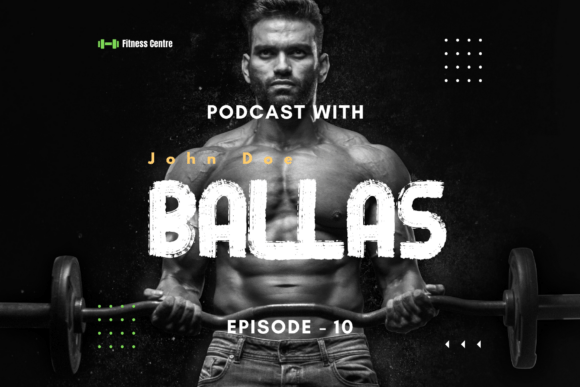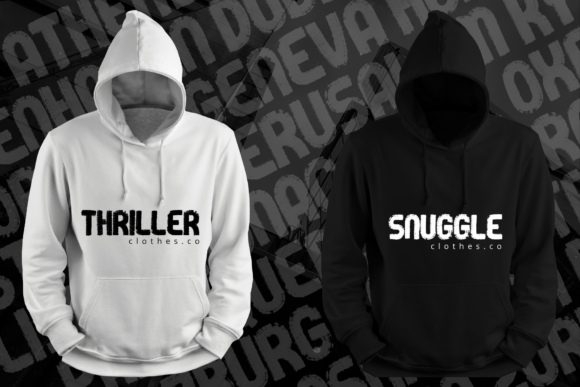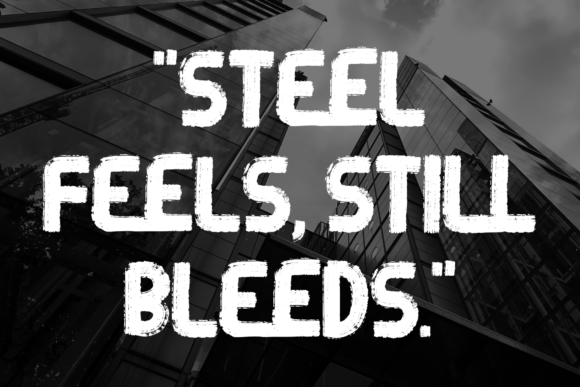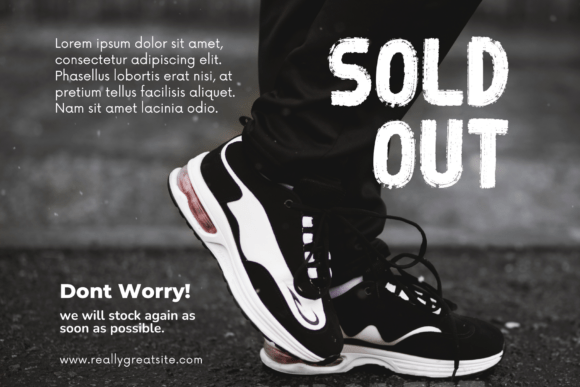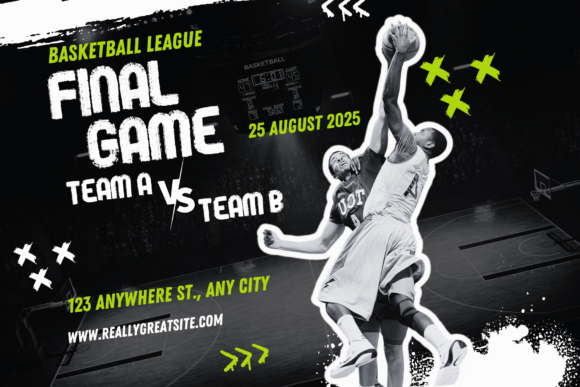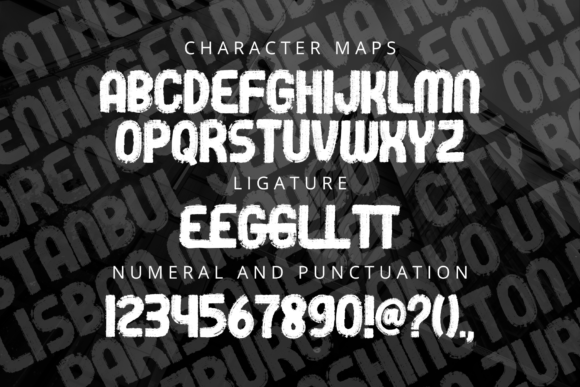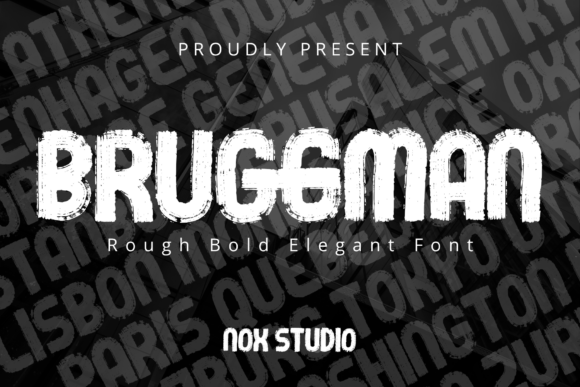
The Elusive Font: A Designer’s Quest for Bruggman
I still remember the design project that led me to discover Bruggman Font. I was working on a branding project for a high-end fashion label, and I needed a font that would capture the essence of elegance and mystery. I scoured the internet, tried countless fonts, but nothing seemed to fit the bill. That was until I stumbled upon Bruggman – a captivating display font that would change the game for me and my design projects.
First Impressions: A Love Affair with Bruggman
Bruggman Font is a unique blend of masculine strength and delicate design. Its fluid, unpredictable strokes evoke the raw feel of rough paint, while exuding an intrinsic elegance that screams sophistication. Here are a few things I love about Bruggman:
- ✨ Elegant yet edgy: Bruggman’s contrasting strokes and curves create a mesmerizing visual effect that’s both refined and bold.
- ✅ Versatile: This font is perfect for display text, titles, and headings, but can also be used for shorter paragraphs and descriptions.
- 🔥 Attention-grabbing: Bruggman’s distinctive style ensures your text won’t go unnoticed – it’s perfect for making a statement.
The Not-So-Perfect Font: A Few Quirks
While Bruggman is an exceptional font, it’s not without its limitations. Here are a few things to keep in mind:
- 🤔 Legibility at small sizes: Bruggman’s intricate strokes and curves can become blurry at smaller font sizes, making it harder to read.
- ⚠️ Limited use in body text: While Bruggman is stunning for display text, it’s not the best choice for lengthy paragraphs or body text due to its ornate design.
The Story Behind Bruggman
Bruggman’s creator, a talented type designer, was inspired by the raw, emotive quality of street art and graffiti. They aimed to capture the essence of rough, handmade strokes and infuse them with an air of elegance and refinement. The result is a font that’s both captivating and enigmatic – perfect for design projects that demand a touch of mystery and sophistication.
| Font Name | Bruggman Font |
| Author | Nox Studio |
| What makes Bruggman unique? | Bruggman’s fluid, unpredictable strokes and curves create a mesmerizing visual effect that’s both refined and bold. |
| Is Bruggman suitable for body text? | No, Bruggman is best used for display text, titles, and headings due to its ornate design and limited legibility at smaller font sizes. |